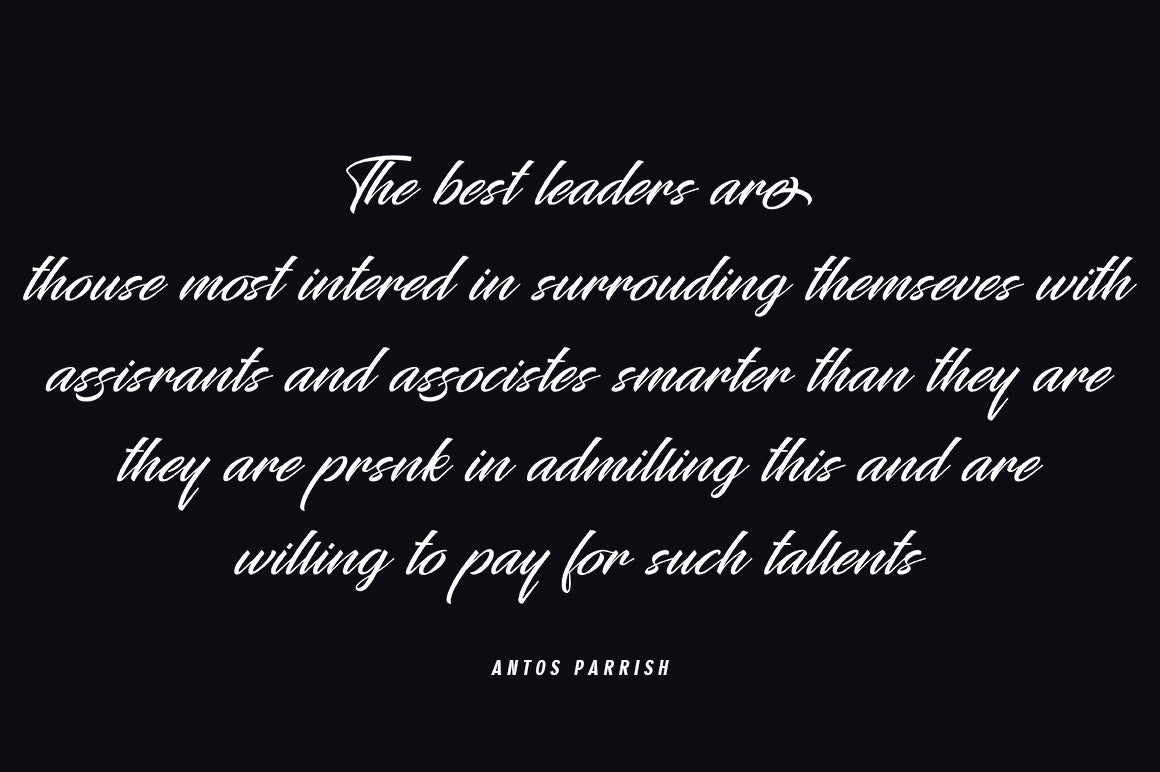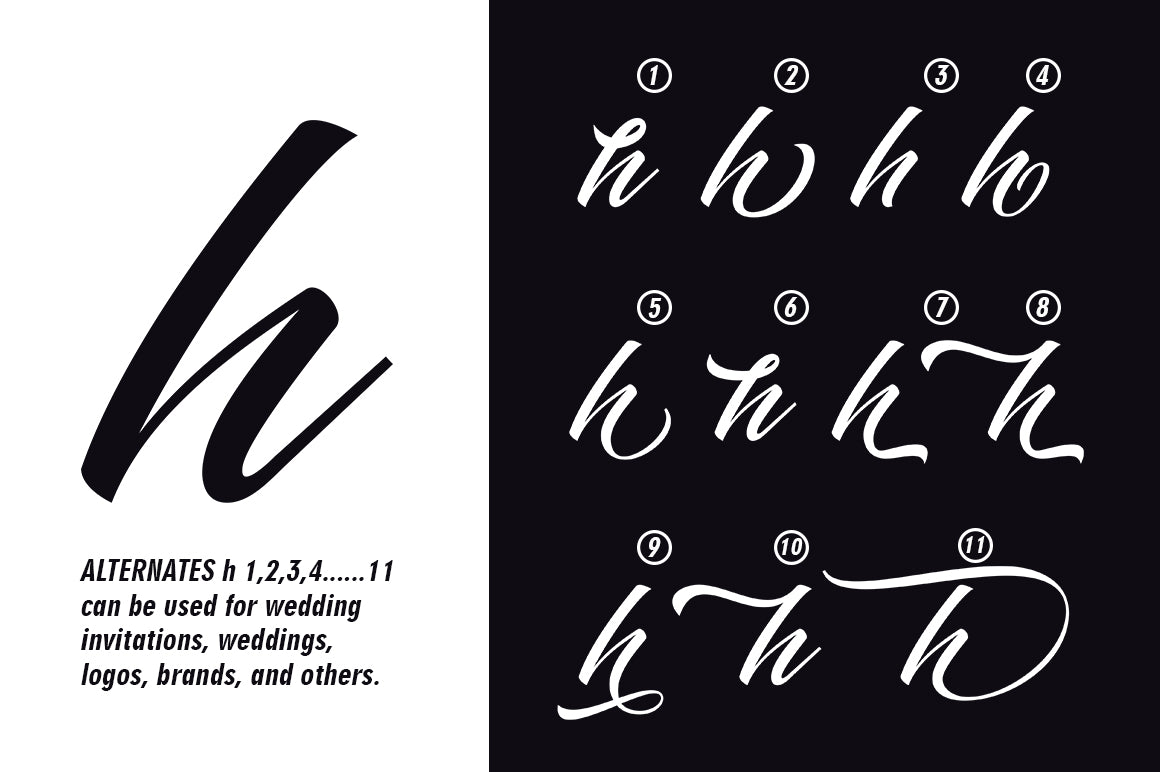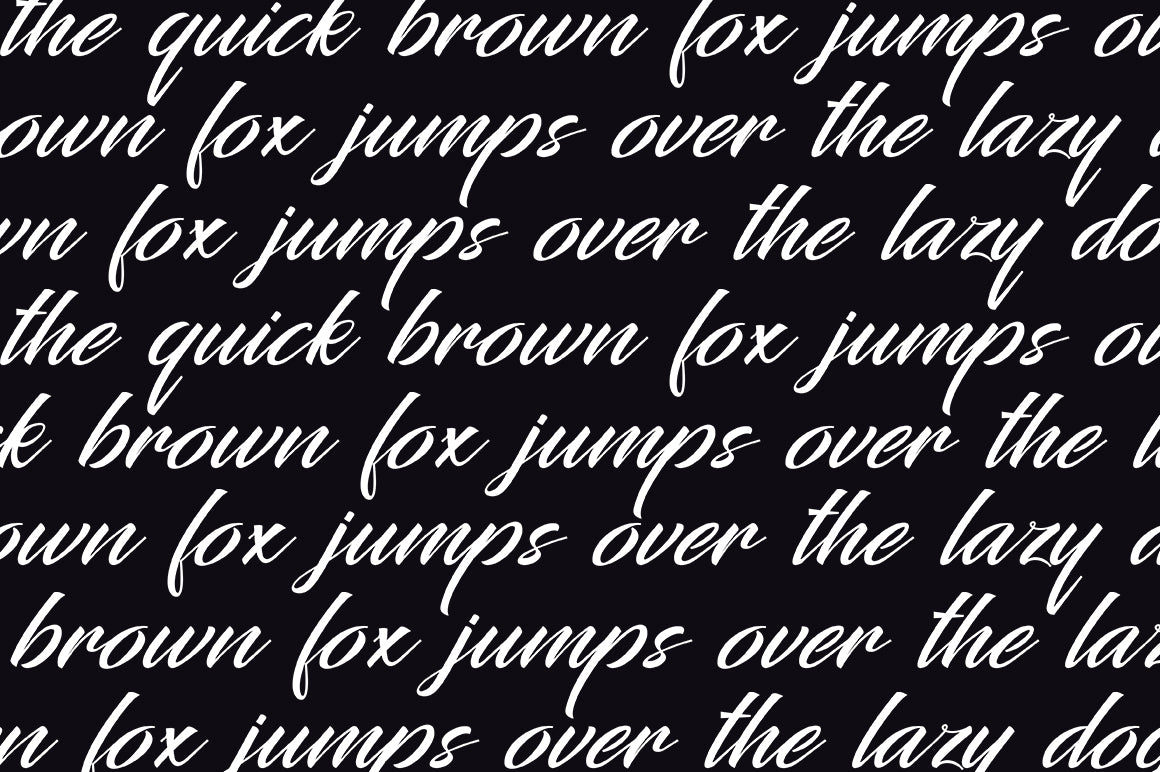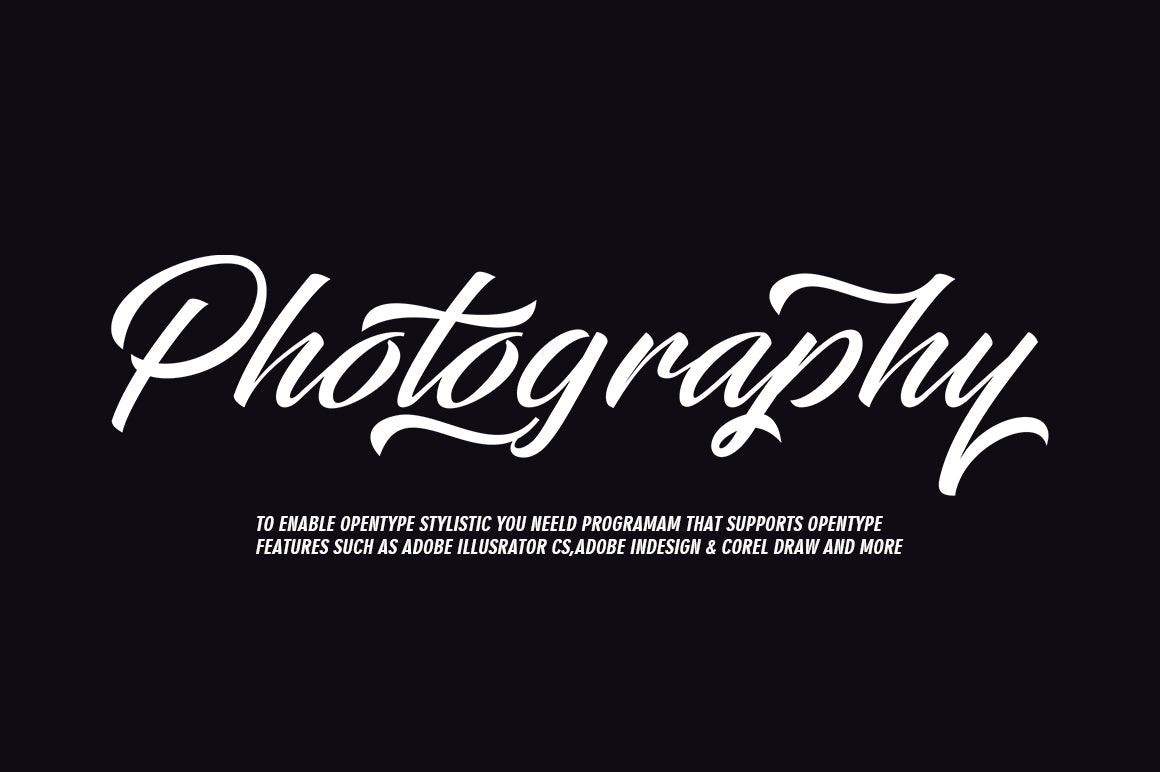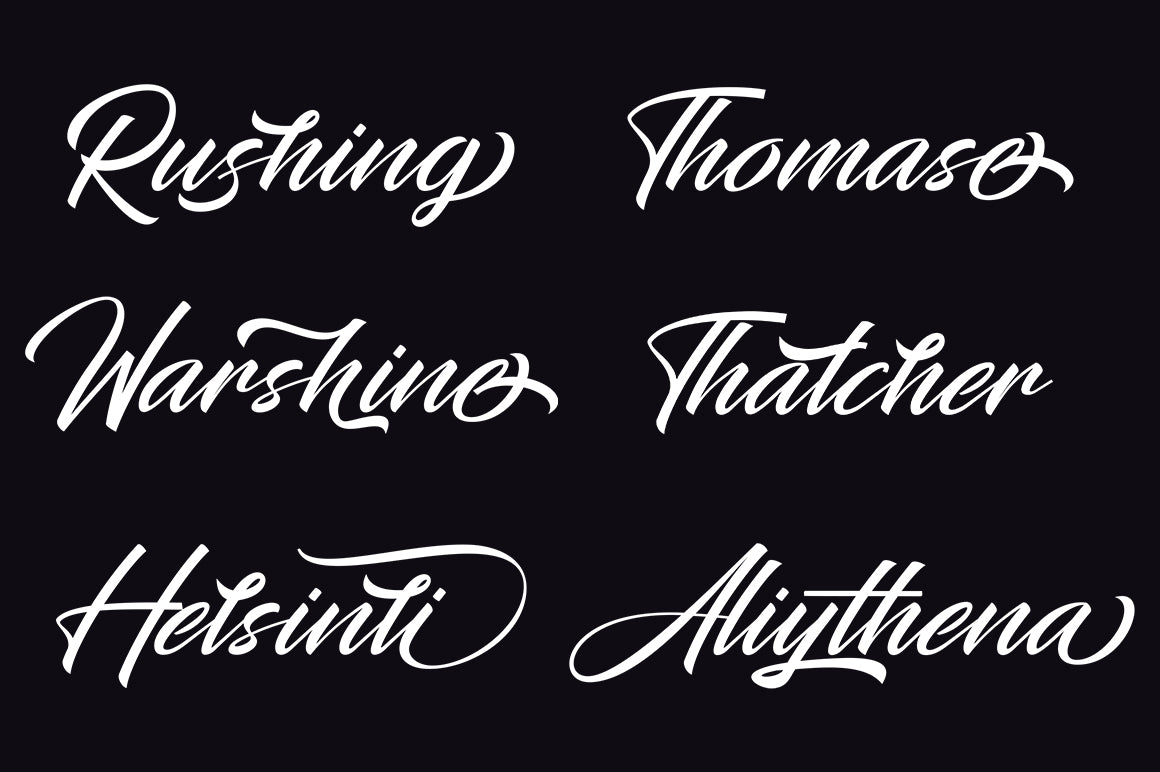
About Wathelmina
Wathelmina is a modern calligraphy design, including Regular. This font is casual and beautiful with swash. Can be used for various purposes. such as logos, product packaging, wedding invitations, branding, headlines, signage, labels, signatures, book covers, posters, quotes, and more. What inside the download files: – Wathelmina, (otf.ttf) – Wathelmina Base, (otf.ttf) – Wathelmina Bold, (otf.ttf) – Wathelmina SemiBold, (otf.ttf) Wathelmina includes a change in the OpenType language style, binding and international support for most Western languages. To activate the OpenType Stylistic alternative, you need a program that supports OpenType features such as Adobe Illustrator CS, Adobe Indesign & CorelDraw X6-X7, Microsoft Word 2010 or newer versions. How to access all alternative characters using Adobe Illustrator: https://www.youtube.com/watch?v=XzwjMkbB-wQ Wathelmina is coded with PUA Unicode, which allows full access to all additional characters without having to design special software. Mac users can use the Font Book, and Windows users can use Character Map to view and copy one of the additional characters to insert into your favorite text editor / application. How to access all alternative characters, using Windows Character Map with Photoshop: https://www.youtube.com/watch?v=Go9vacoYmBw If you need help or have questions, please let me know. I am happy to help 🙂 Thank you & Congratulations on Designing!